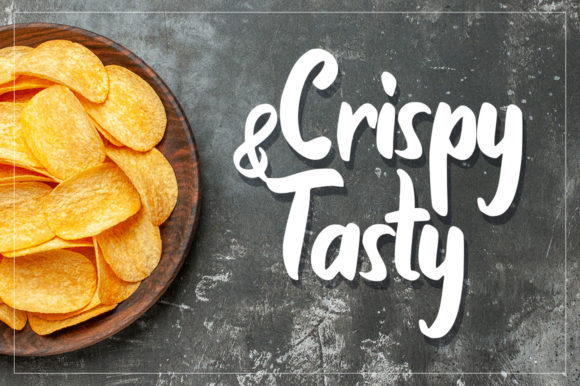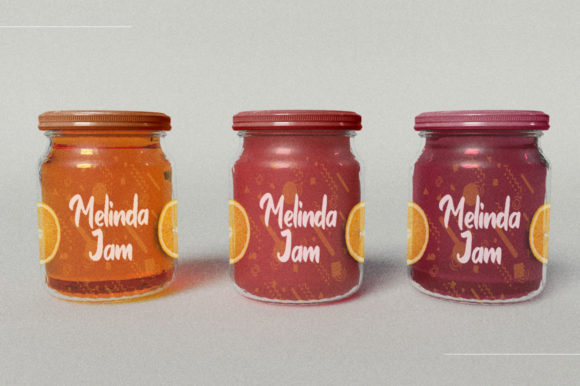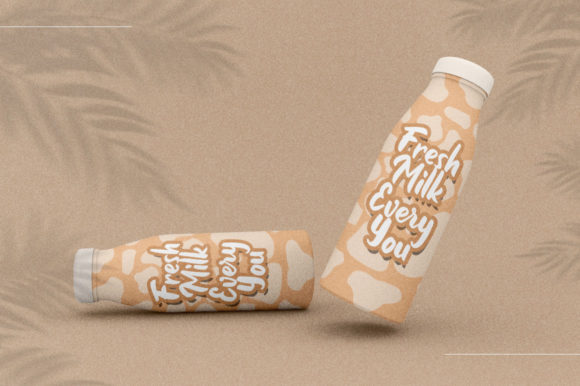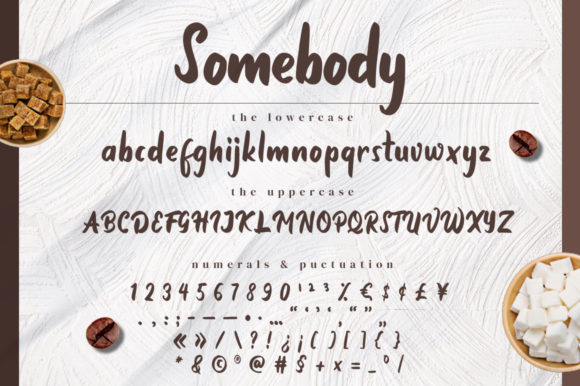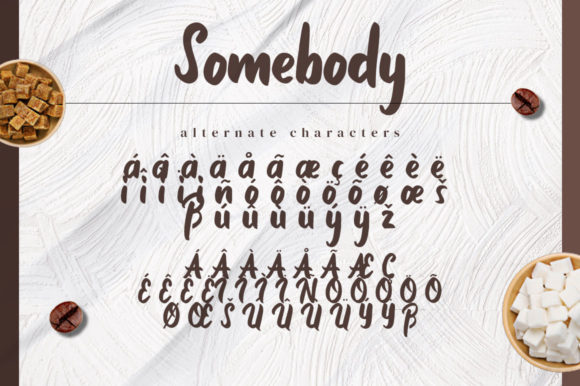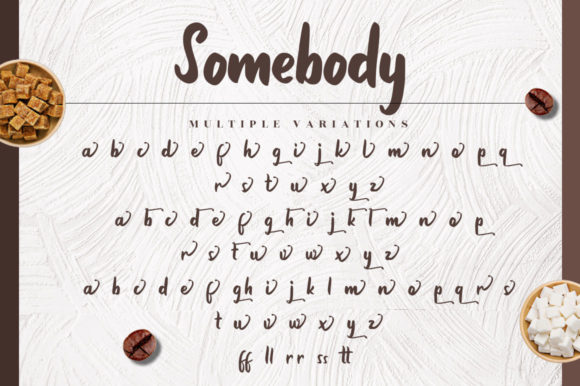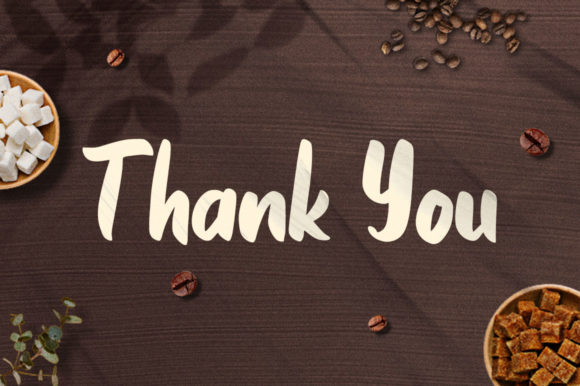
Somebody Font
About Somebody Font
Somebody is a lovely paint brushed script font that adds a touch of artistic flair to your designs. With its well-balanced characters and versatile nature, this font is a great choice for a wide range of creative projects. Additionally, Somebody is PUA encoded, allowing you to easily access all the glyphs and swashes for enhanced customization.
The paint brushed style of Somebody brings a unique and handmade look to your designs. The characters capture the fluidity and organic texture of brushstrokes, creating a visually appealing composition. This font adds a sense of artistic expression and creativity, making your designs stand out with a ravishing and distinctive look.
The well-balanced characters of Somebody ensure a harmonious flow and legibility. Each letter is carefully crafted to maintain balance and consistency, creating a visually pleasing and readable composition. It adds a touch of elegance and refinement to your designs while retaining the organic and natural feel of the paint brush strokes.
Somebody’s versatility makes it suitable for a variety of design projects. Whether you’re working on branding materials, packaging, posters, social media graphics, or any other creative endeavor, this font adapts to different themes and styles. Its paint brushed appearance adds a dynamic and artistic element, enhancing the overall visual impact.
With Somebody’s PUA encoding, you have easy access to all the glyphs and swashes, providing you with endless possibilities for customization. You can add decorative elements, flourishes, and unique variations to create personalized and visually stunning designs.
By incorporating Somebody into your projects, you can unleash your creativity and be inspired by its versatility. The font’s paint brushed script adds a sense of artistry and individuality, creating ravishing designs that capture attention. Let Somebody be your creative companion and bring your ideas to life with its unique and expressive style.
In summary, Somebody is a lovely paint brushed script font that adds an artistic flair to your designs. Its well-balanced characters create a visually appealing composition. With its PUA encoding, you can easily access all the glyphs and swashes for enhanced customization. Embrace the versatility of Somebody and create ravishing designs that captivate and inspire.